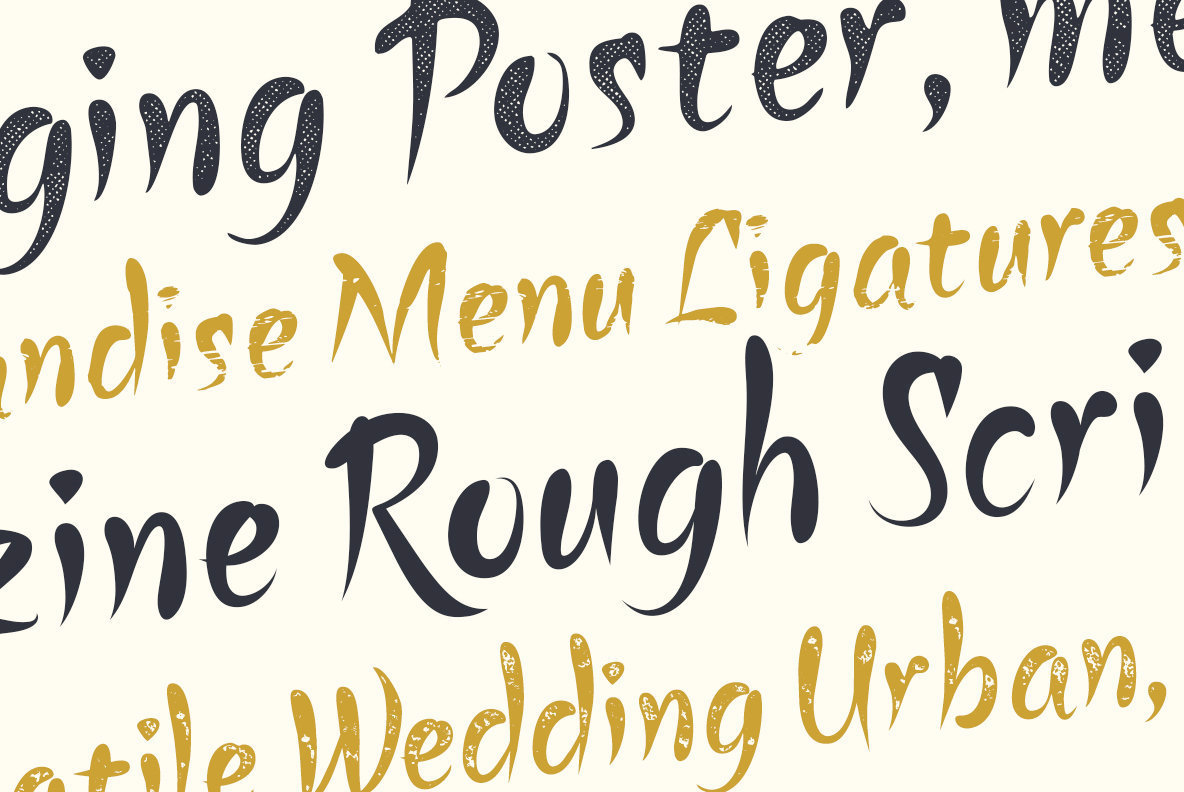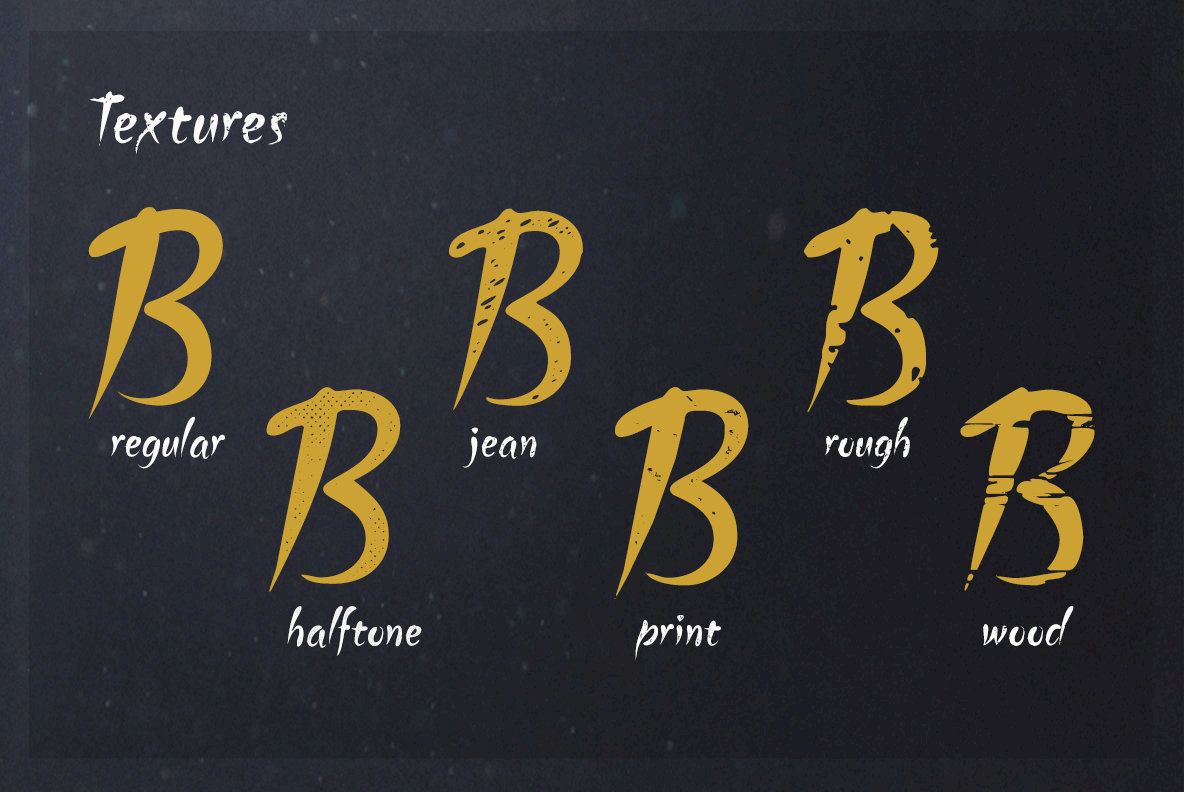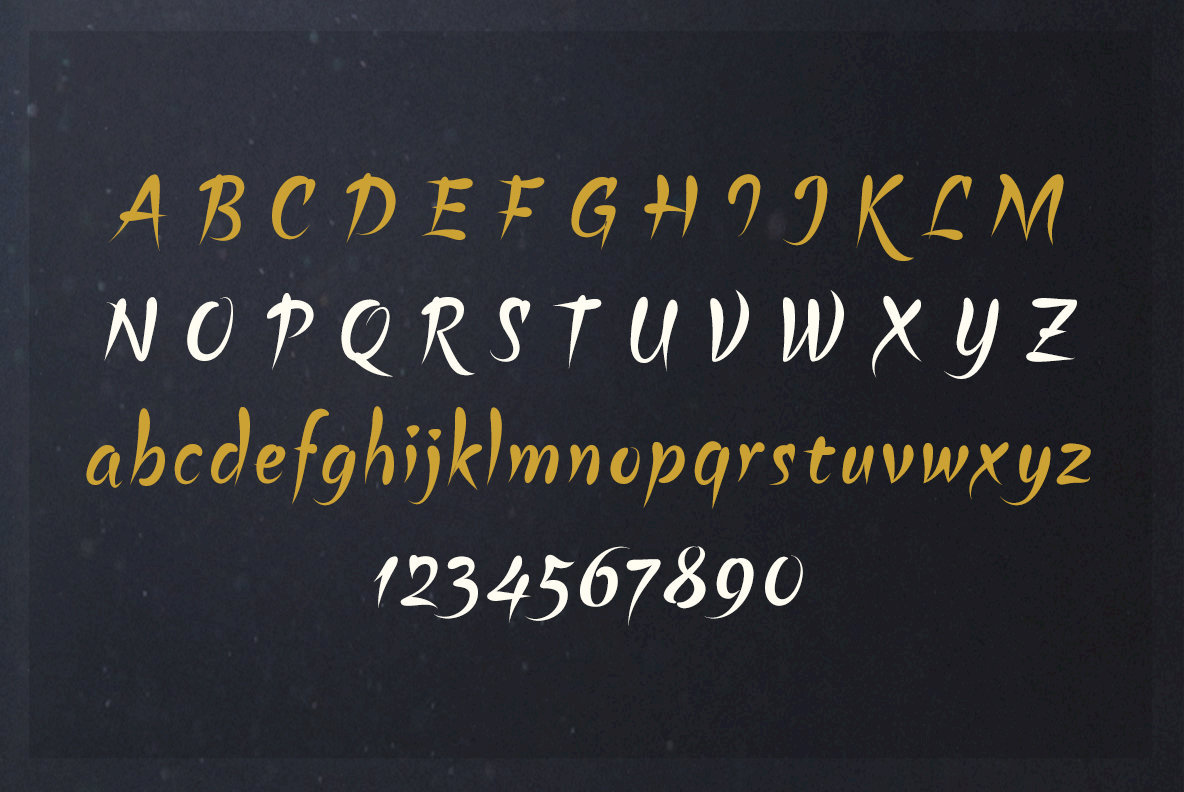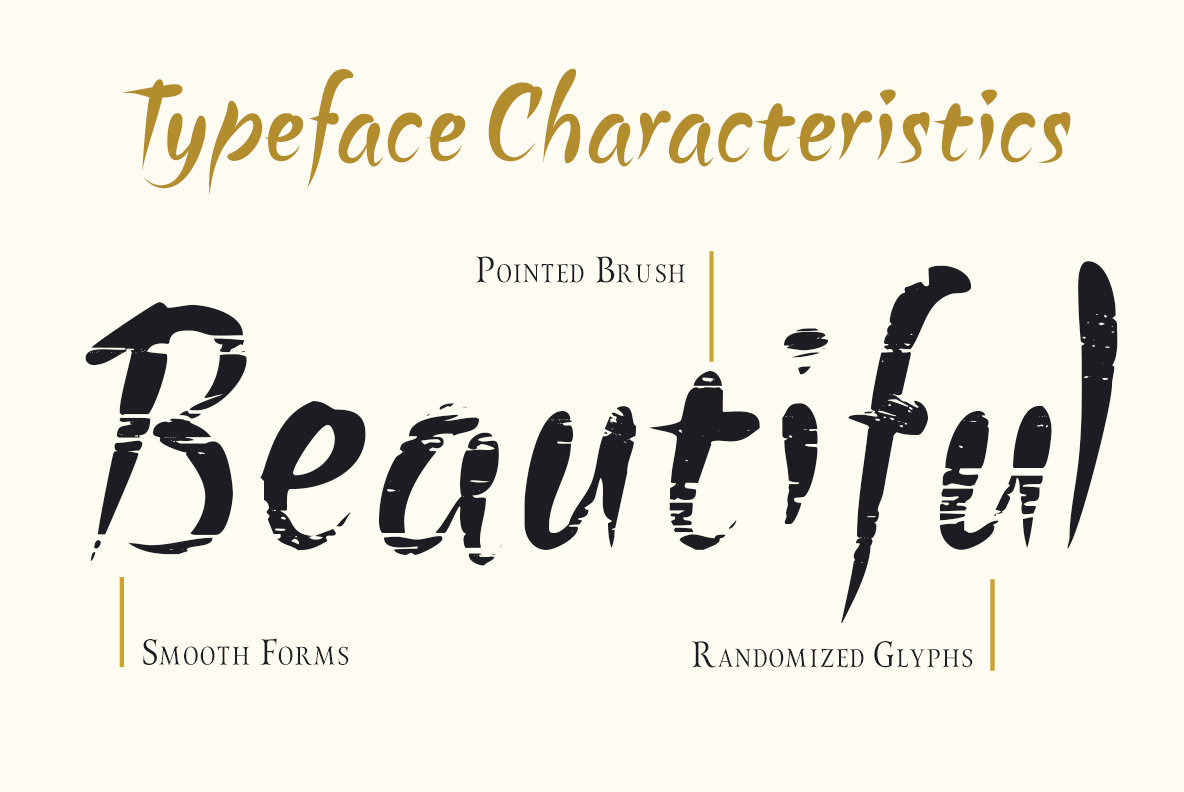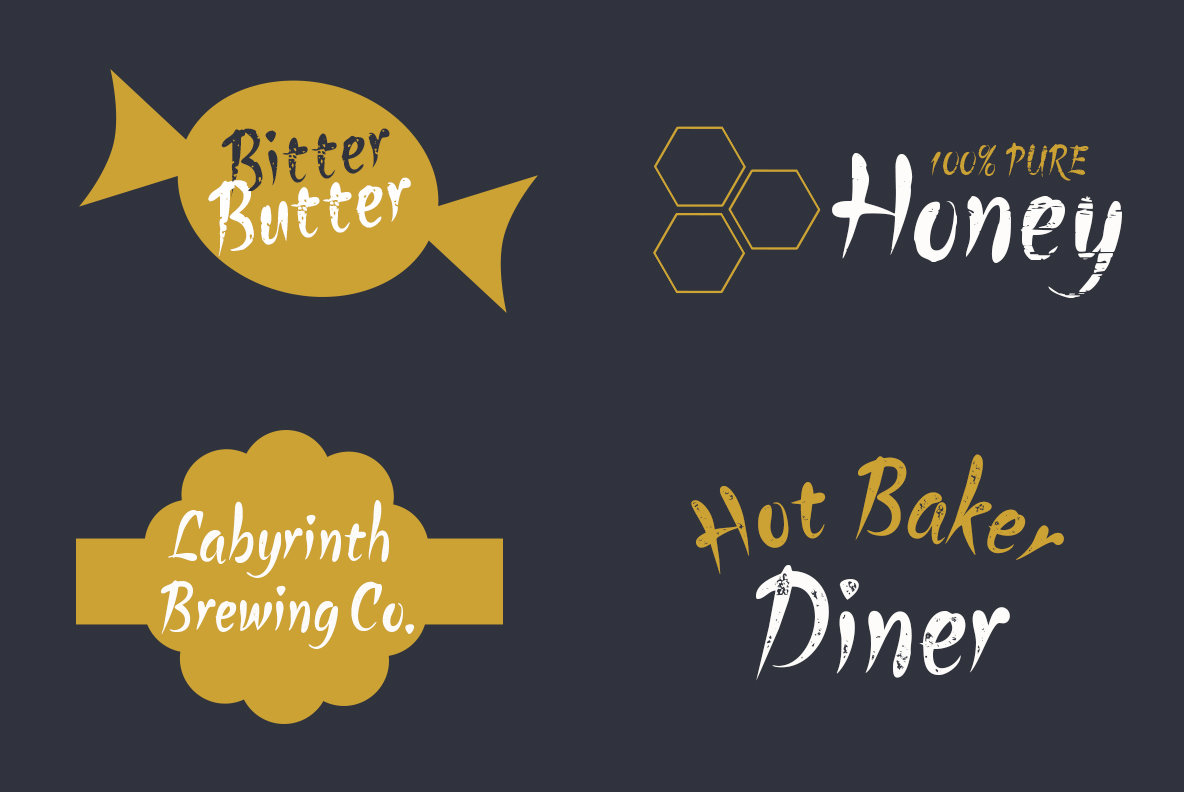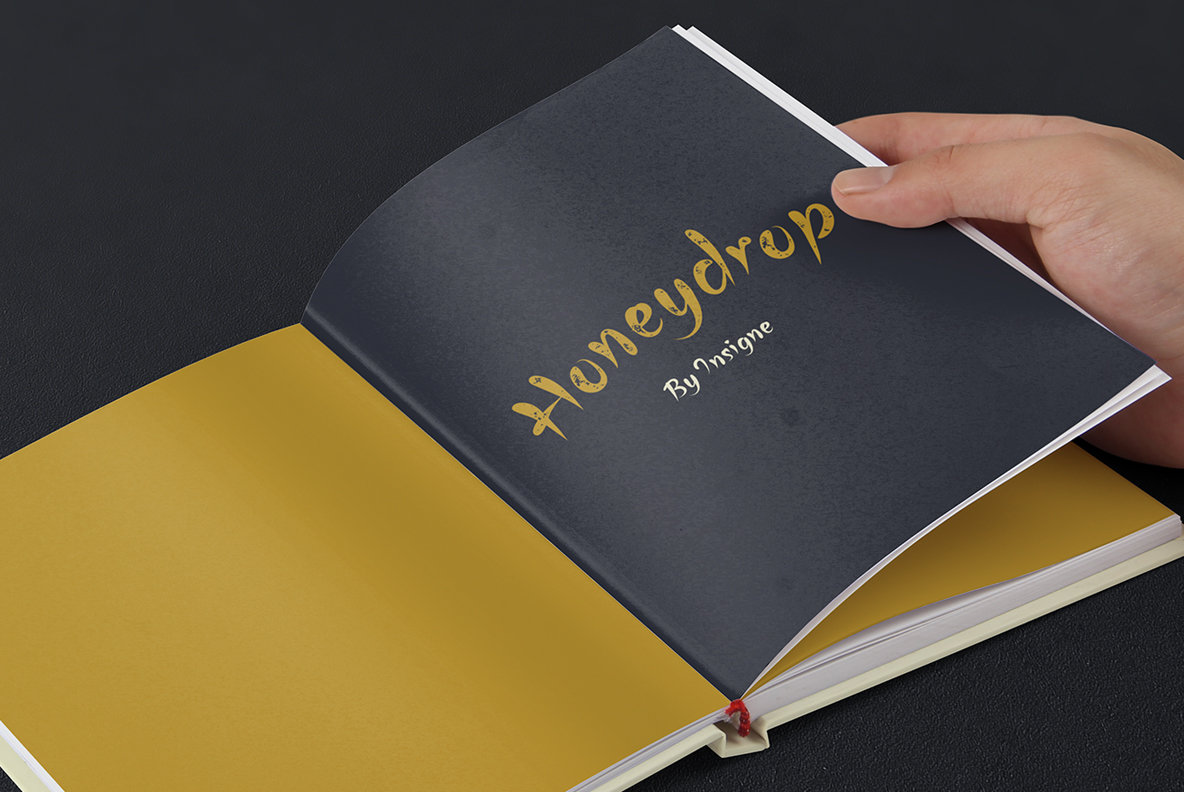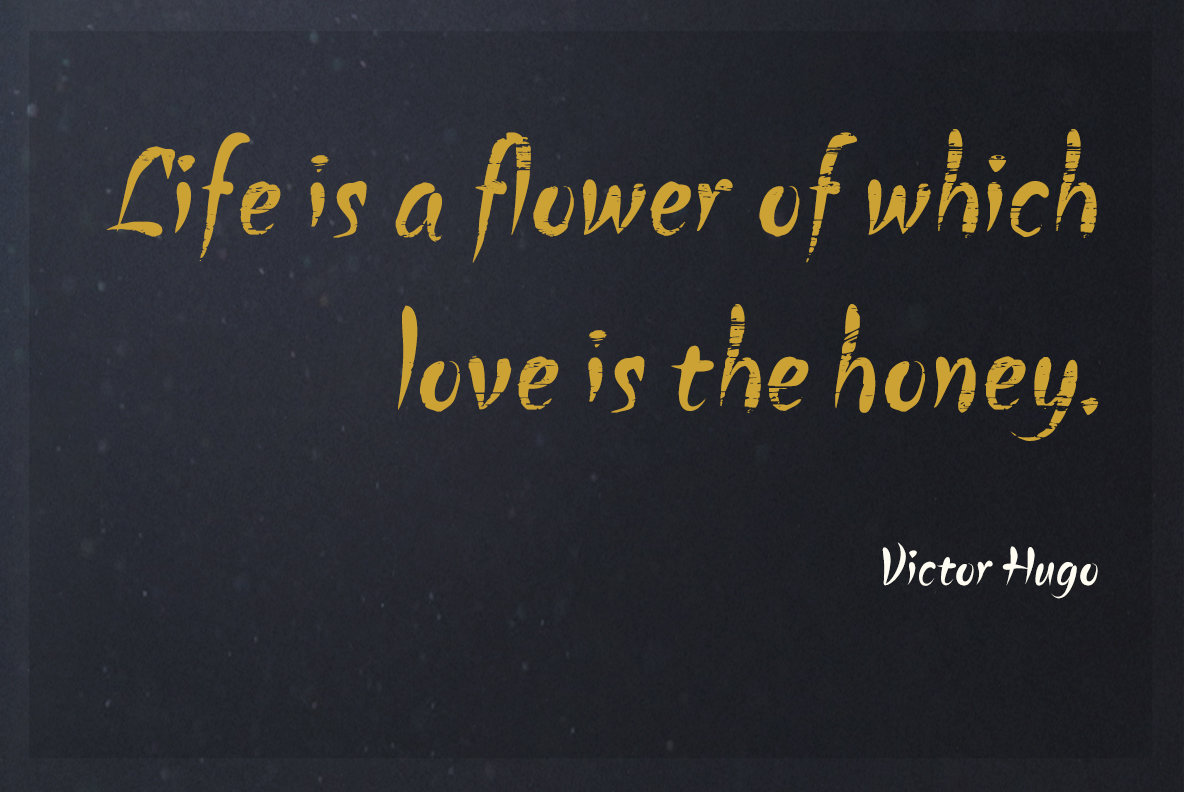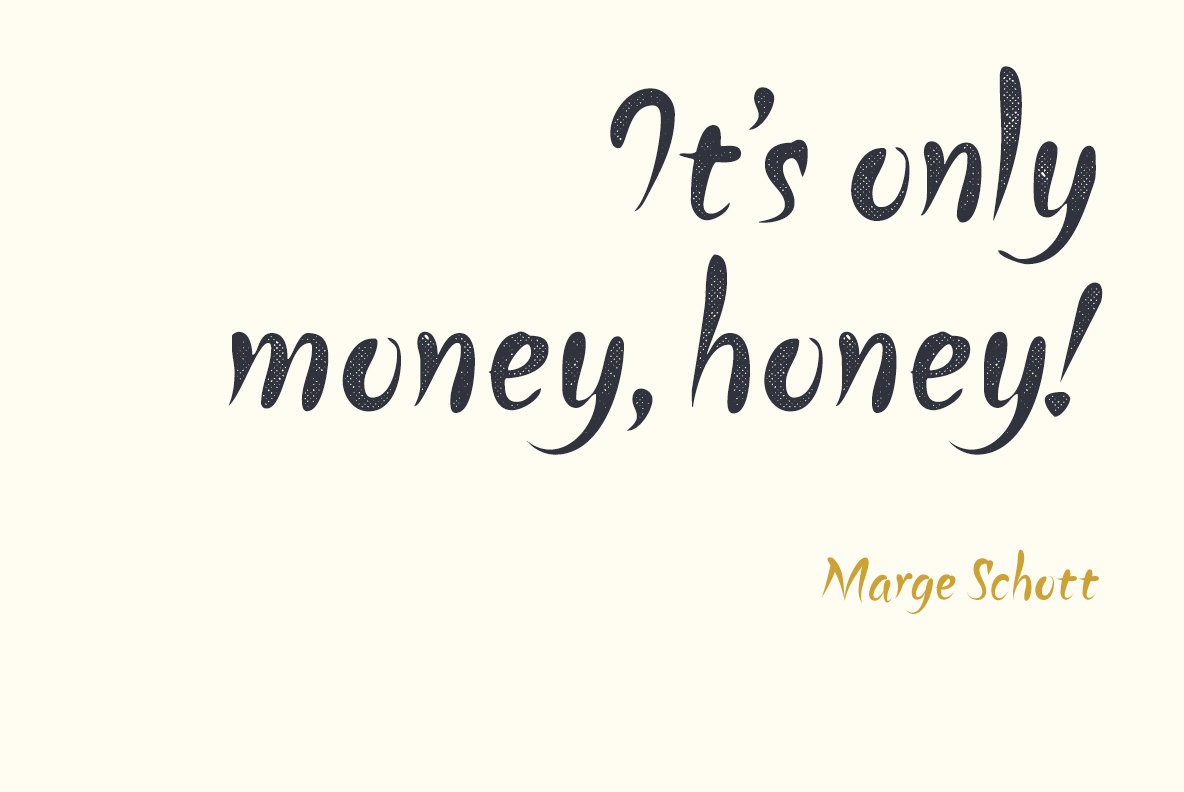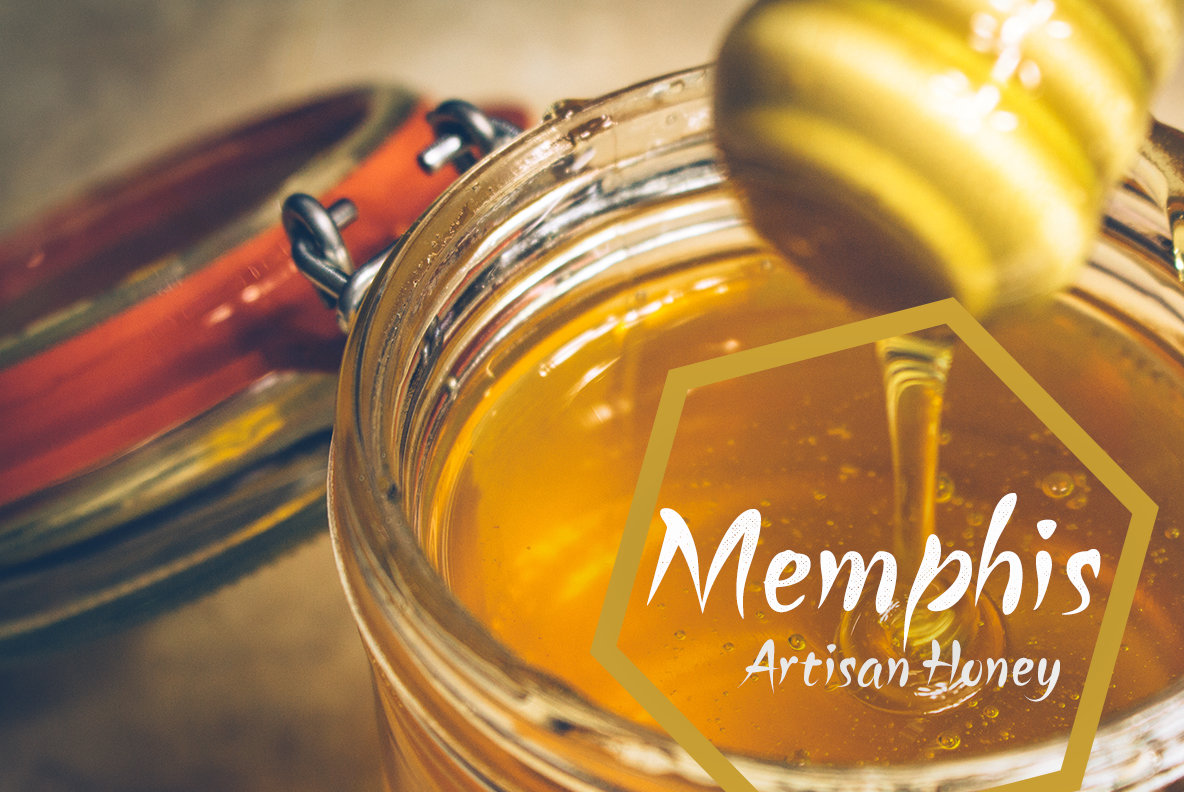
Honeydrop Font
Savor the sweet script of insigne design’s new Honeydrop. This decadent delicacy of a font features a unique form with an Eastern flavor that’s great for projects like organic or all-natural food packaging and branding.
Mimicking the strokes of a dolloped, pointed brush, Honeydrop has a playful, creative character with an eager element of adventure. To sweeten the possibilities, Honeydrop’s unique textures help the typeface mix in well to the different areas you use it. Its five different distressed variants entice your reader to the page, where the face’s many alternates treat you to a variety of possibilities. Use the OpenType override options like random replacements to round out each of the fonts in this family. With 65 alternate characters for each font, you’ll come away with a unique taste each time add Honeydrop to your project.